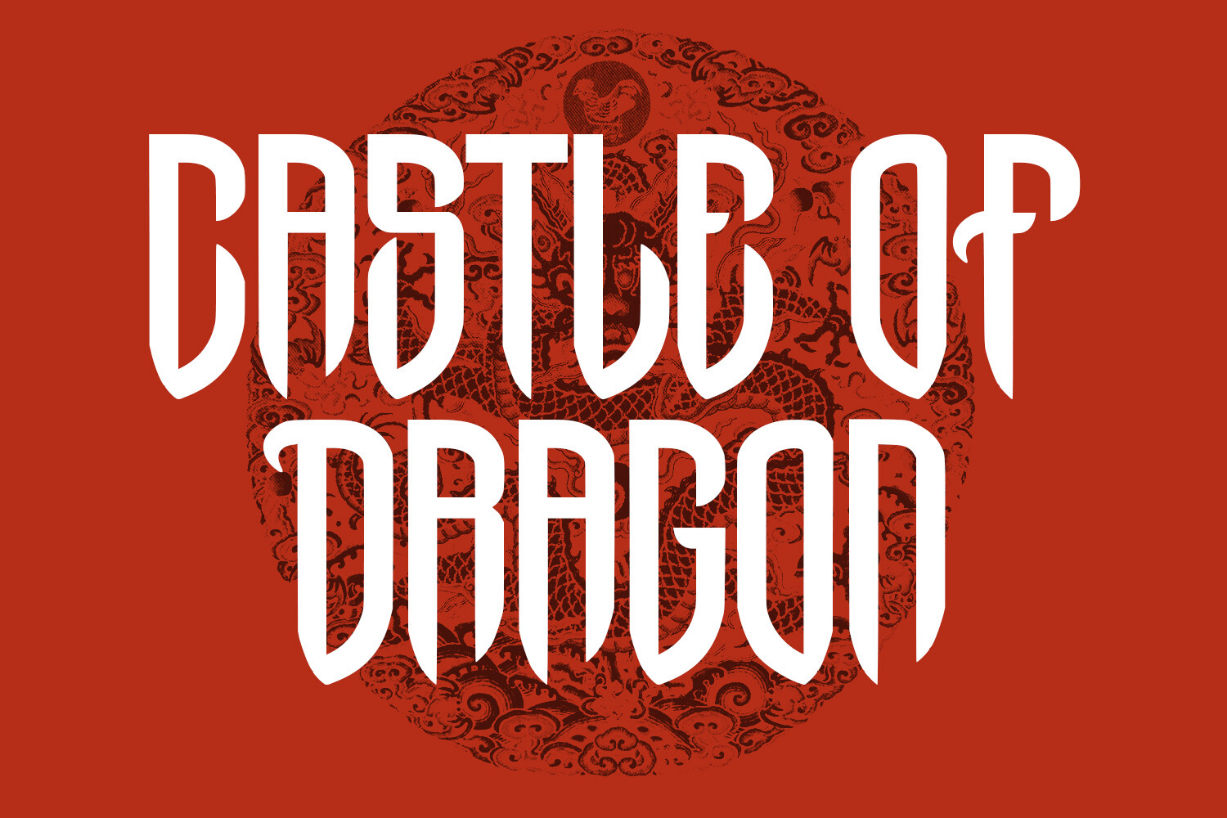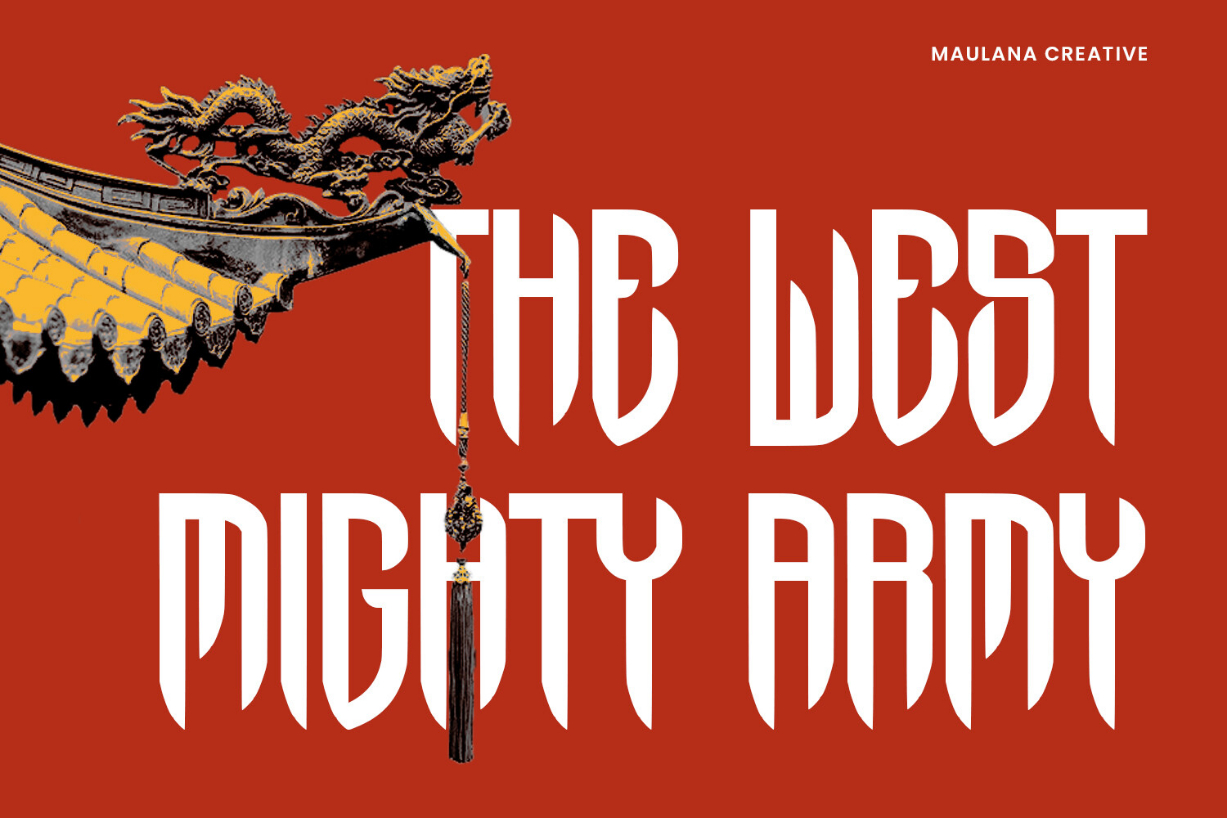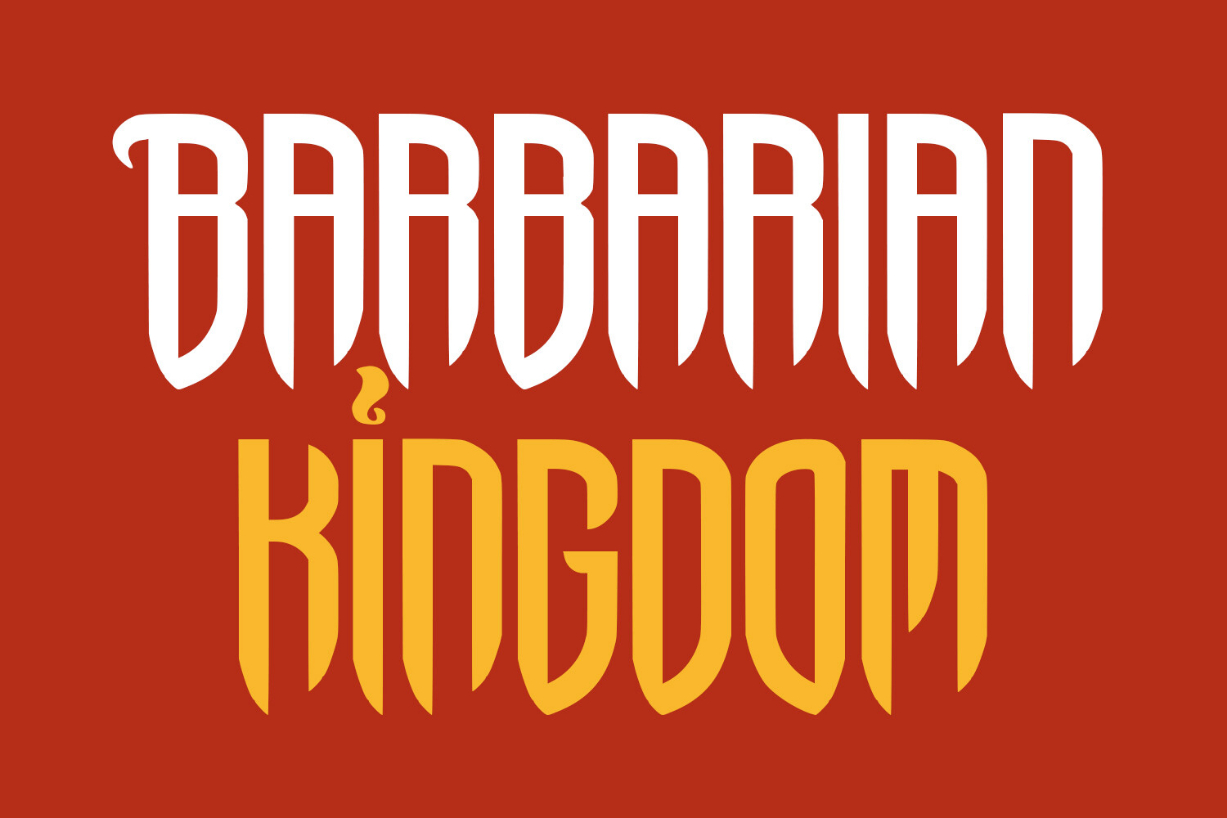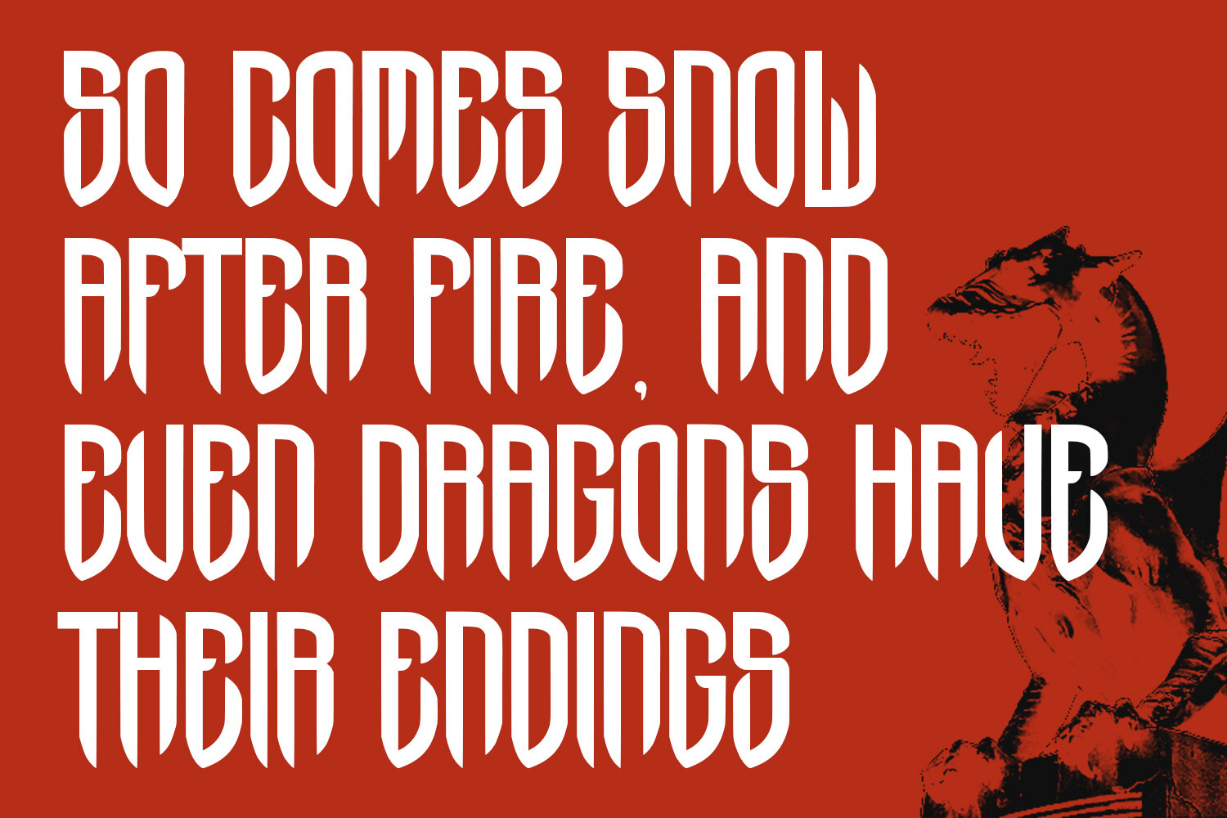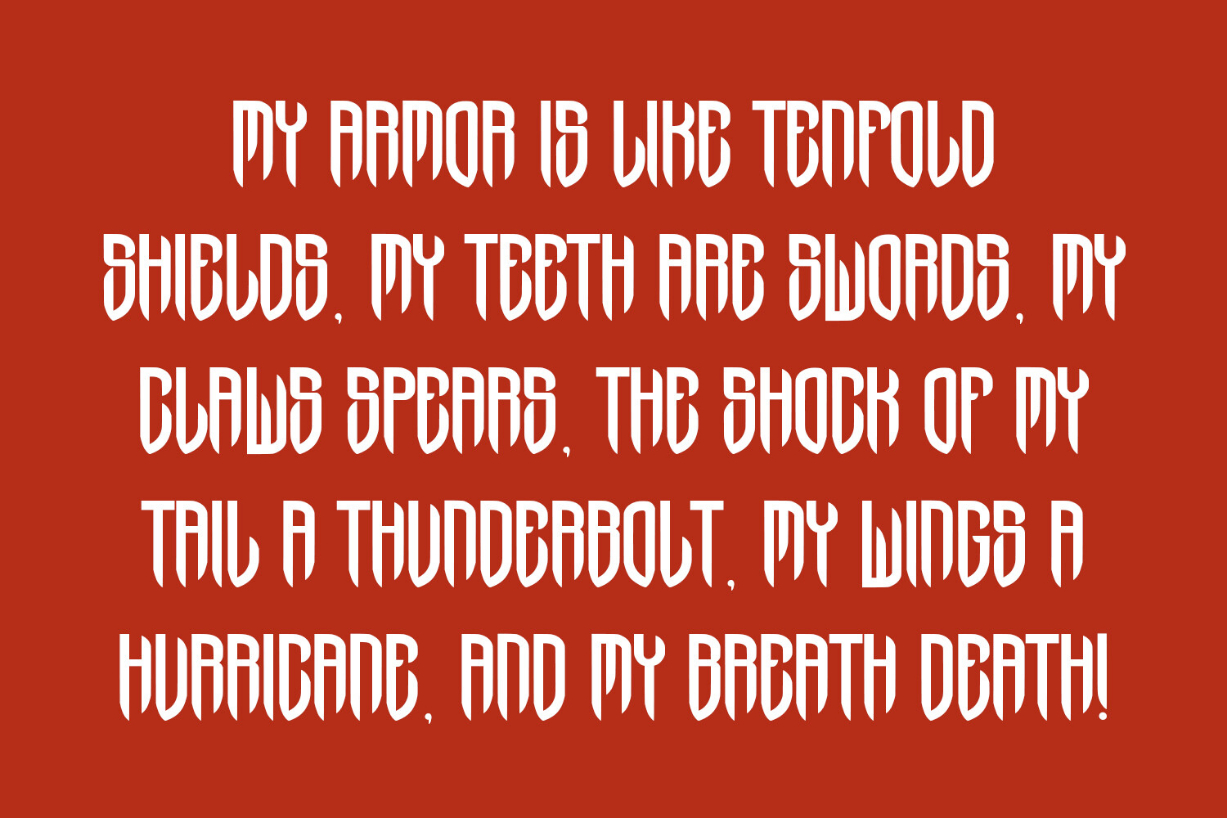
Dark Dragon Font
About Dark Dragon Font
Dark Dragon is a bold and thick lettered blackletter font. Add it confidently to your projects, and you will love the results. This font is PUA encoded which means you can access all of the glyphs and swashes with ease!